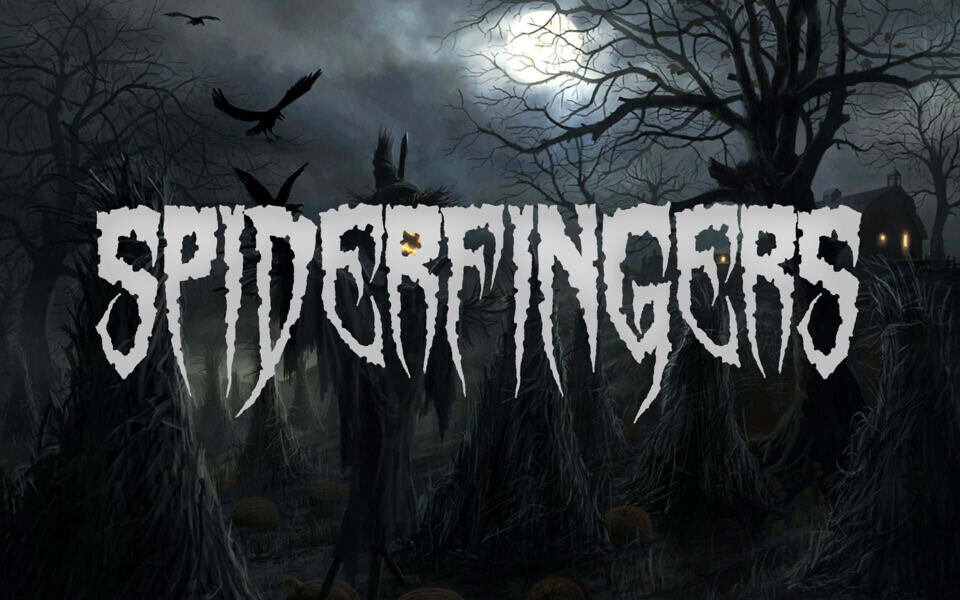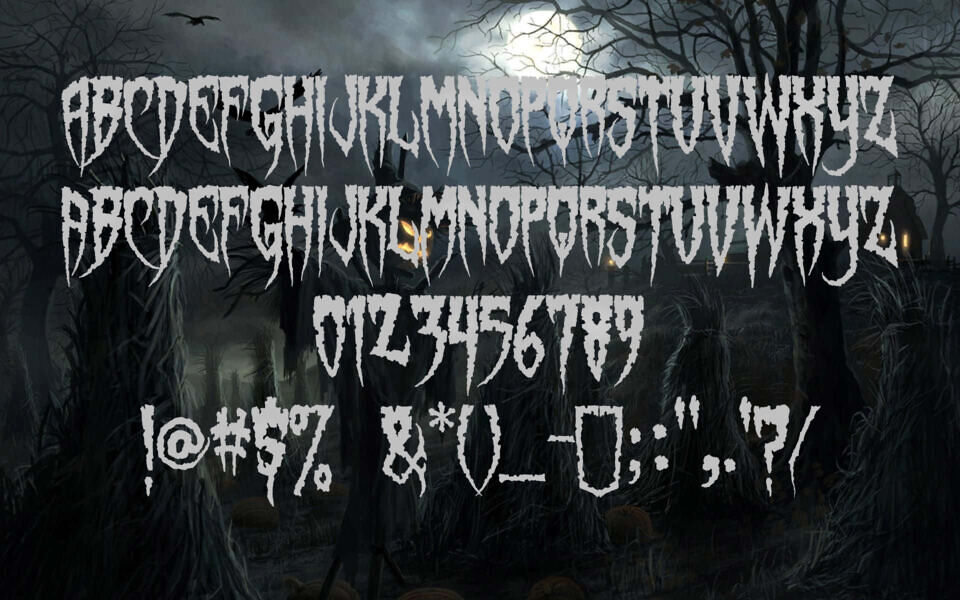
Spiderfingers is a hand-lettered horror font crafted by Sinister Fonts. This gothic horror typeface boasts jagged, dripping letters with a raw, uneven texture, perfect for Halloween designs, spooky posters, and eerie titles. Its macabre, web-like strokes and irregular edges create a haunting effect and brings a sinister flair to your projects.